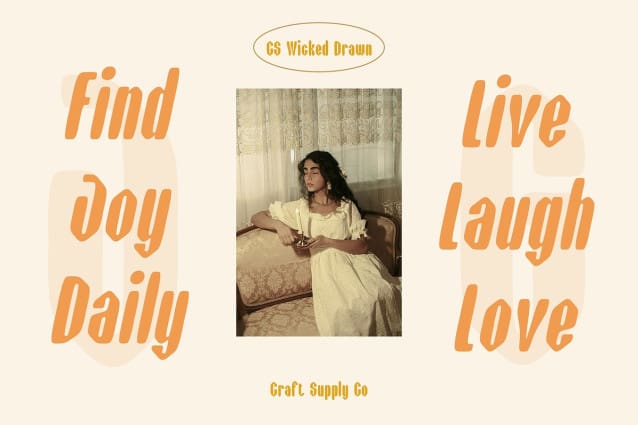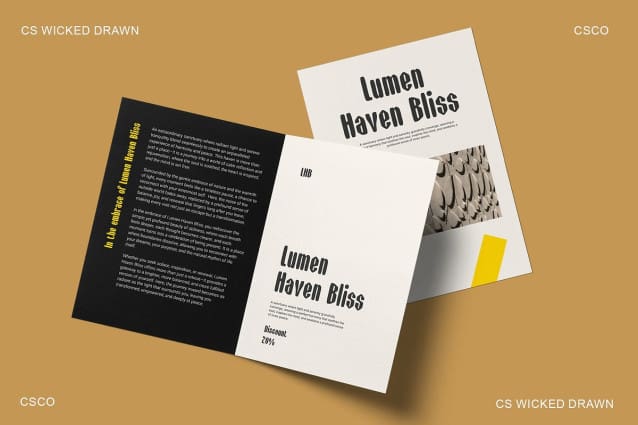
CS Wicked Drawn Font
CS Wicked Drawn Font is a bold, industrial sans-serif display font that makes a powerful visual impact. Its thick, sturdy letterforms evoke a sense of strength and durability, perfect for designs that need to command attention. The addition of hand-drawn details softens the raw, mechanical edges, giving each character a unique, artistic touch that brings an organic feel to the design. This fusion of industrial strength with hand-crafted imperfections creates a dynamic balance of ruggedness and creativity.
Industrial Strength Meets Artistic Imperfection With its solid, robust letterforms, this font captures the essence of industrial typography—strong, geometric, and striking. The hand-drawn elements offer a stark contrast, introducing fluid, imperfect lines that add personality and warmth to the design. This combination results in a distinctive font that feels both grounded and expressive, making it ideal for projects that need a bold yet artistic statement.
Perfect for Modern Branding and Creative Projects This drawn font is perfect for modern branding, posters, album covers, and any creative project that demands a striking, rugged appearance combined with a touch of artistic flair. Whether you’re designing for the tech, music, or fashion industries, this font offers the perfect balance of strength and individuality. Its bold, industrial character ensures your message stands out.